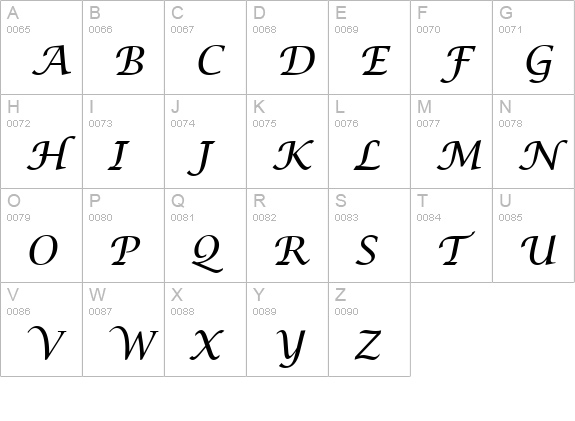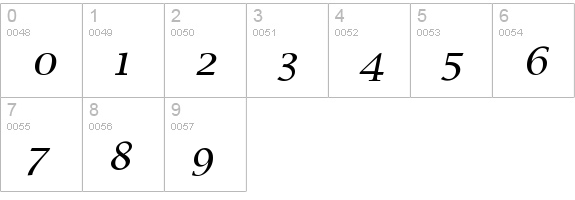
Lucida Calligraphy Italic is a distinctive, italic variant in the Lucida typeface family \xE2\x80\x94 well suited to design and typography projects.
Lucida Calligraphy Italic font is a timeless and elegant typeface that exudes sophistication and charm. Its graceful and flowing letterforms make it perfect for adding a touch of luxury to any design project. The italic style adds a sense of movement and dynamism, making it ideal for formal invitations, stylish branding, and elegant packaging. What sets Lucida Calligraphy Italic font apart is that it is available for free download at FontsMarket.com. This means that you can easily access this beautiful typeface and use it in your projects without any restrictions. Whether you are a graphic designer, a business owner, or a creative individual looking to elevate your designs, Lucida Calligraphy Italic font is a fantastic choice that will surely impress your audience. Download Lucida Calligraphy Italic font today from FontsMarket.com and add a touch of sophistication and elegance to your projects effortlessly.